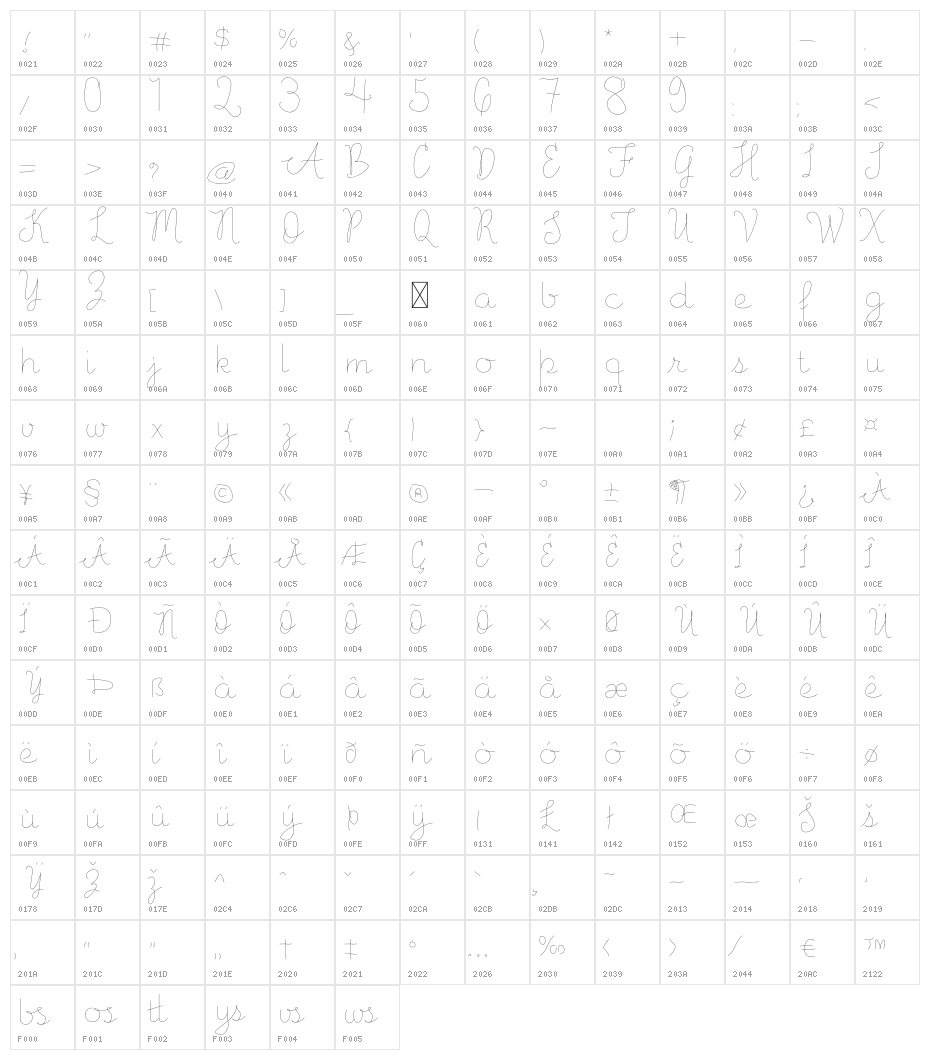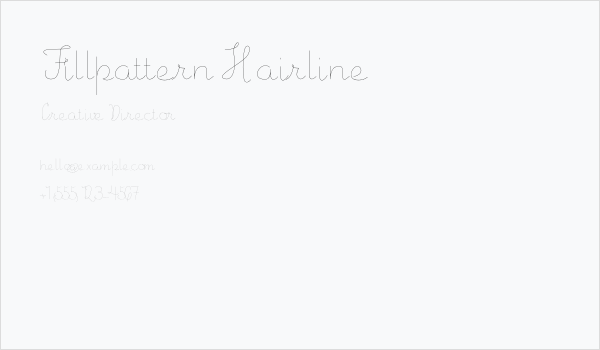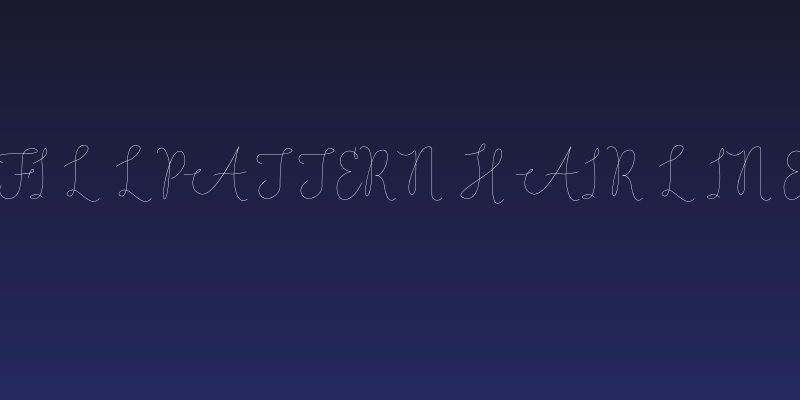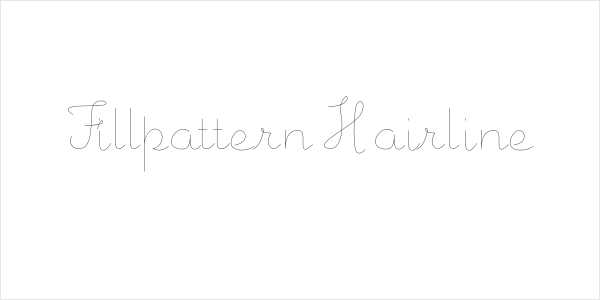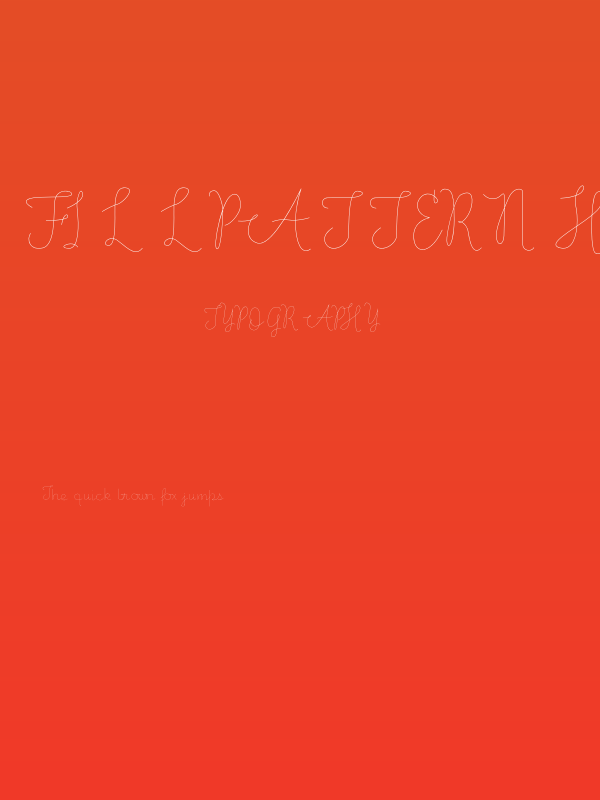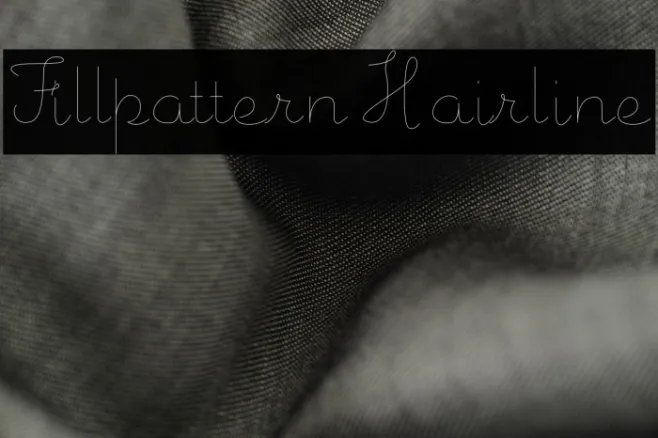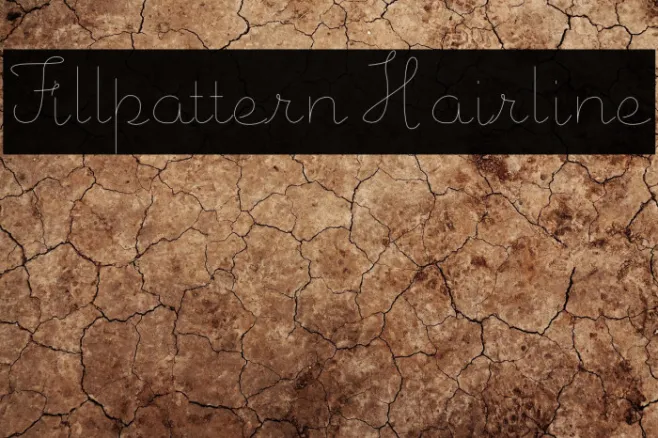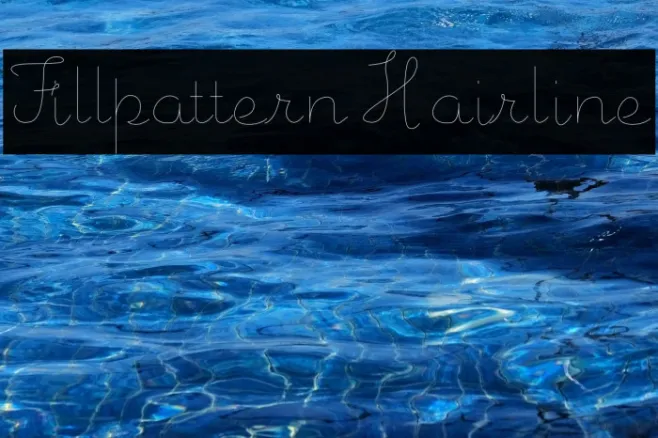
Fillpattern Hairline Font
Fillpattern Hairline Description
This font features a delicate and elegant script style with thin, hairline strokes that give it a light and airy appearance. The characters are connected in a fluid manner, reminiscent of cursive handwriting, yet maintain a modern and clean look. The uppercase letters are slightly more ornate, with subtle loops and curves, while the lowercase letters are simpler and more straightforward. The numerals and special characters follow the same thin, graceful line work, ensuring consistency across all glyphs. This font's refined style makes it suitable for projects that require a touch of sophistication and elegance.